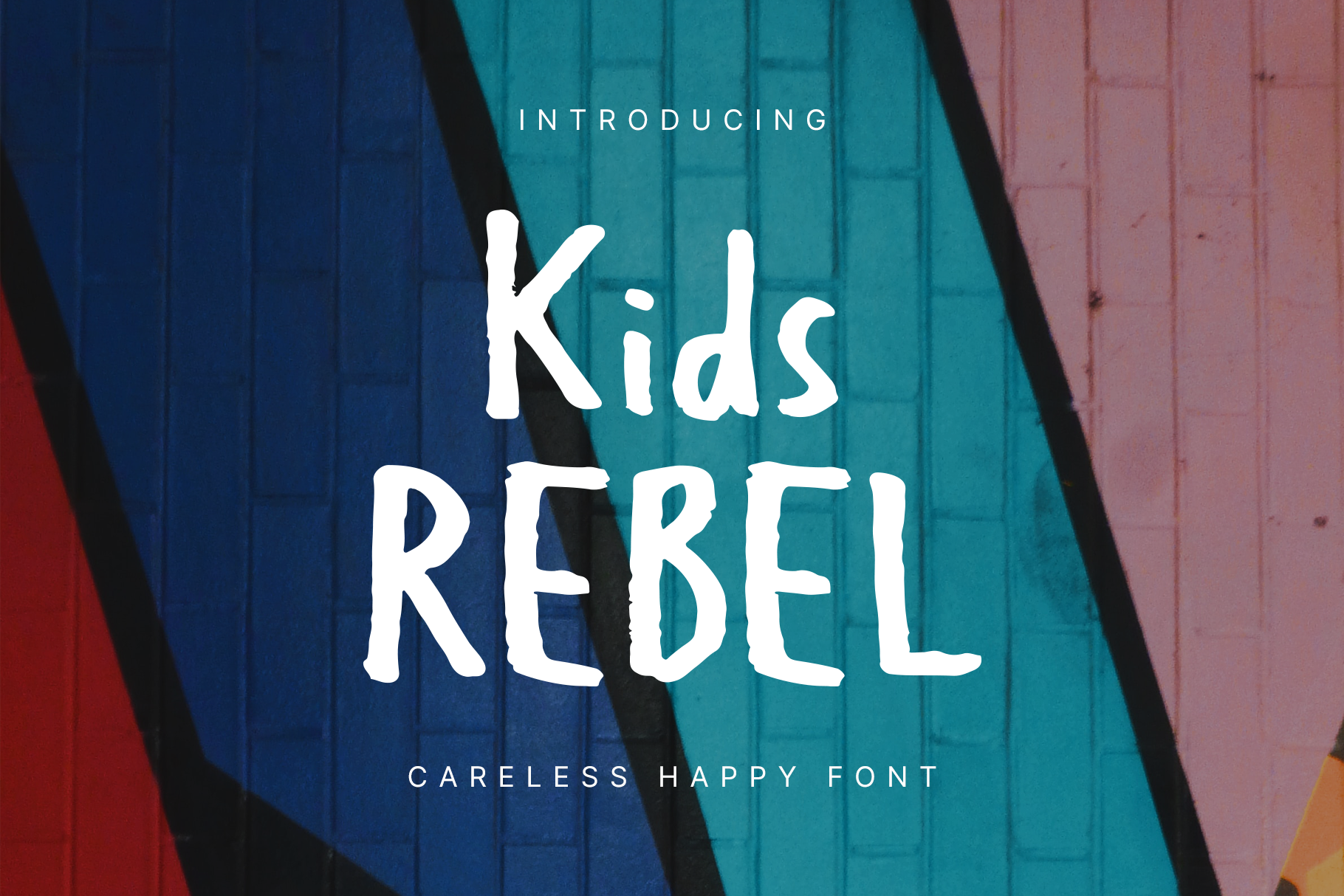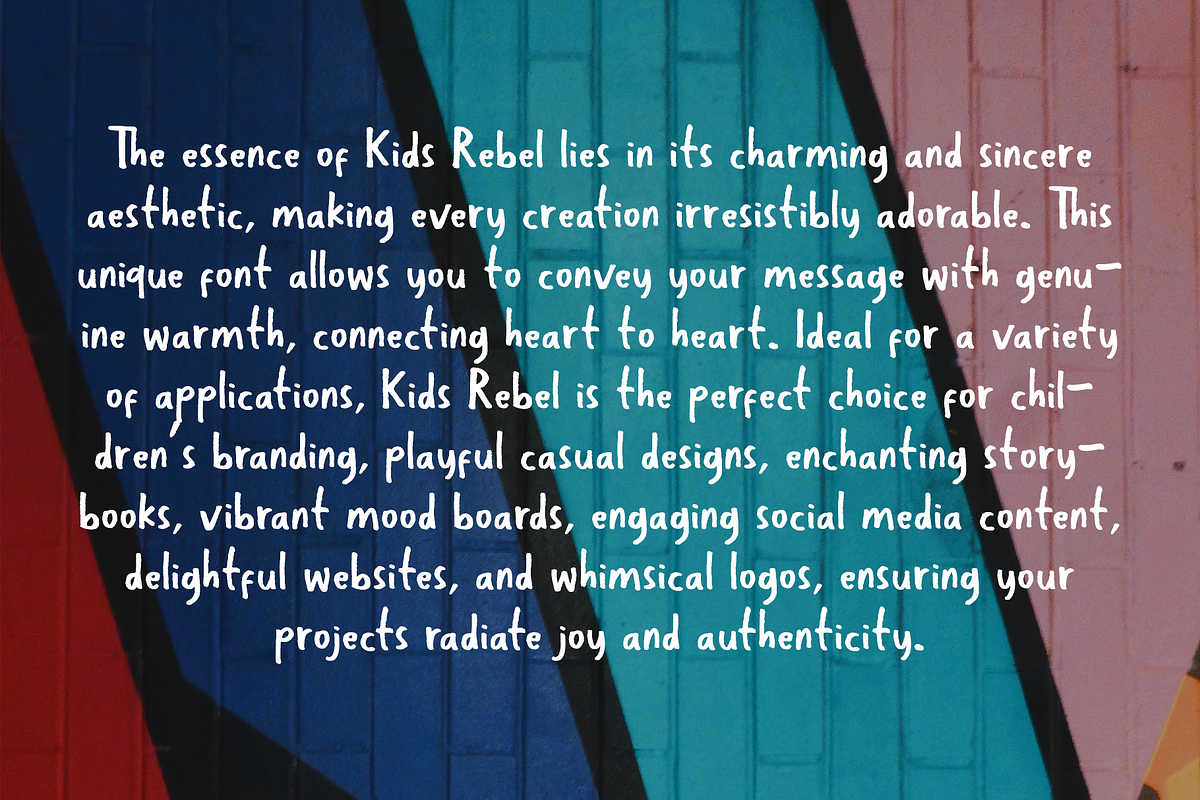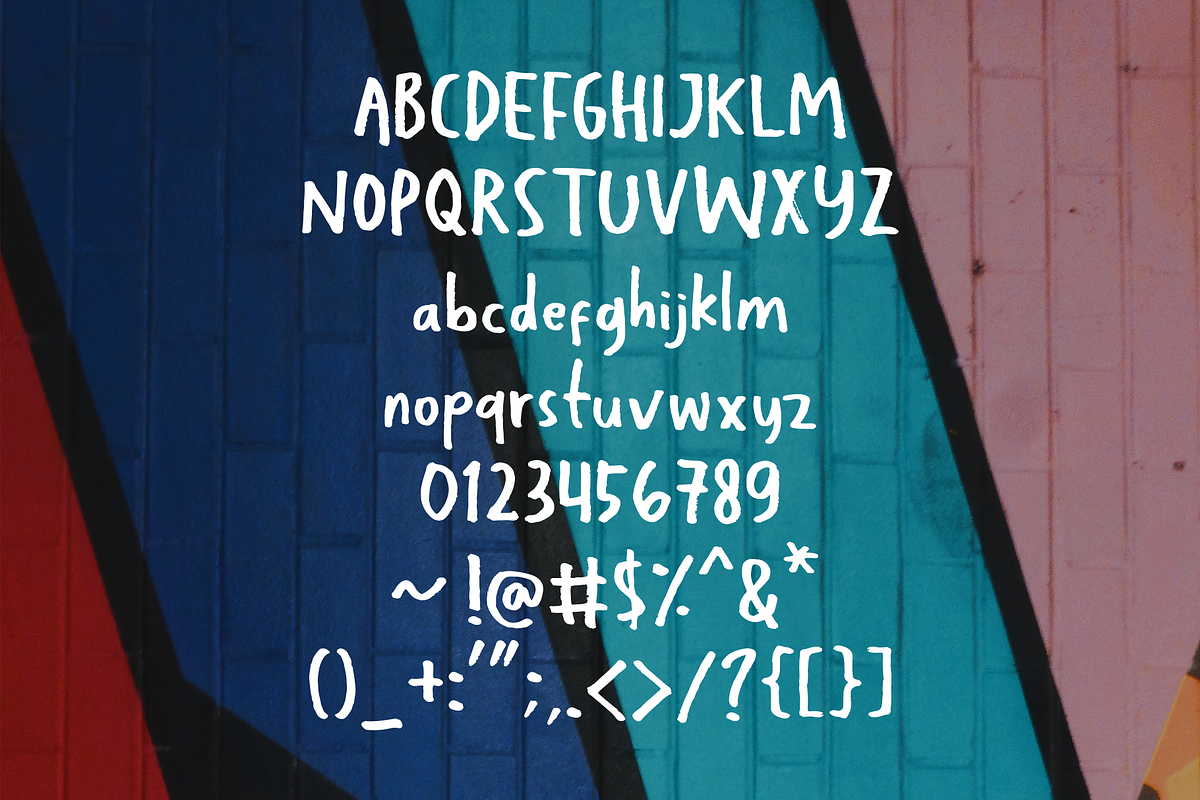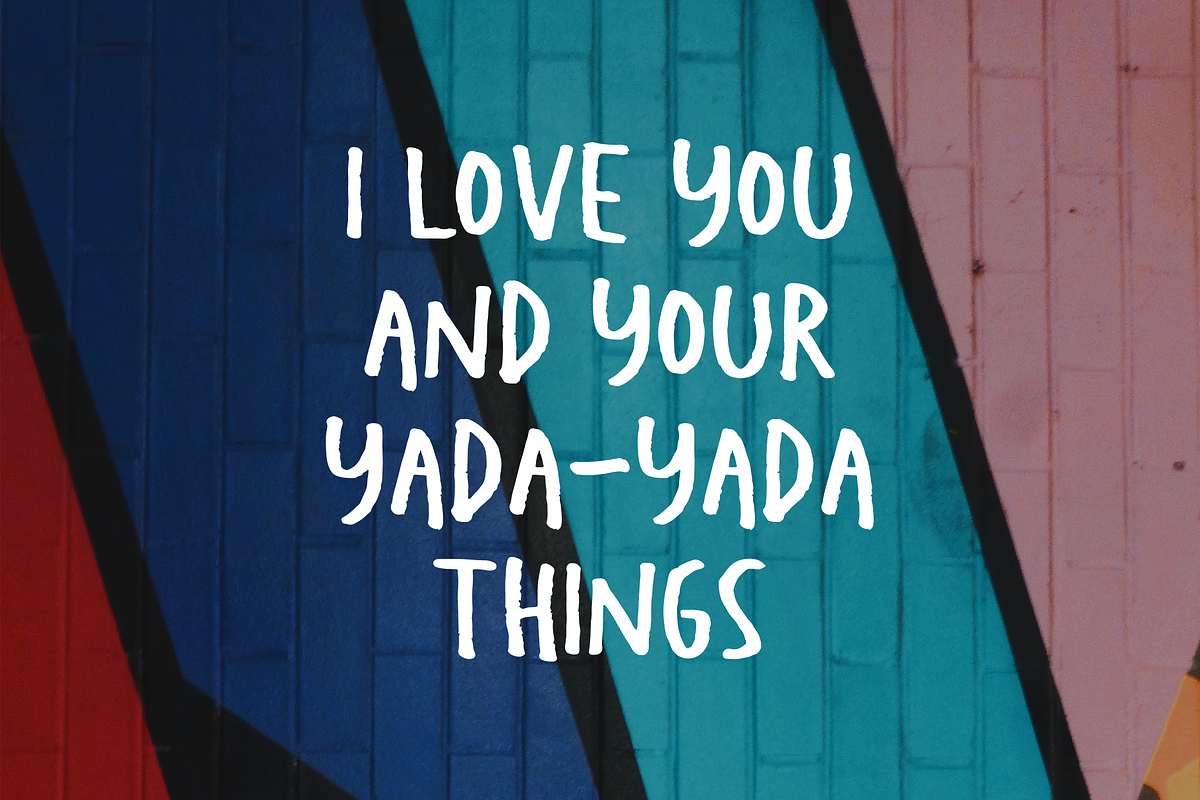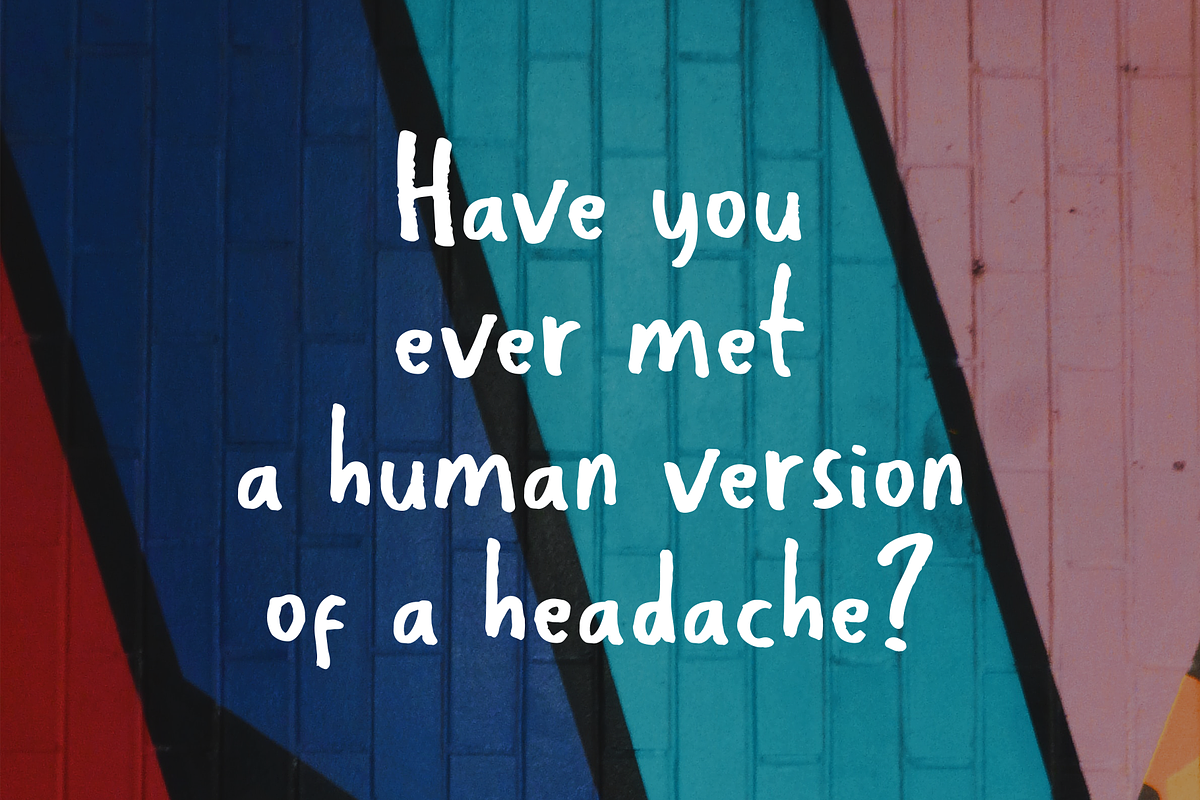
Kids Rebel - Happy Fonts
The essence of Kids Rebel lies in its charming and sincere aesthetic, making every creation irresistibly adorable. This unique font allows you to convey your message with genuine warmth, connecting heart to heart.
Ideal for a variety of applications, Kids Rebel is the perfect choice for children's branding, playful casual designs, enchanting storybooks, vibrant mood boards, engaging social media content, delightful websites, and whimsical logos, ensuring your projects radiate joy and authenticity.